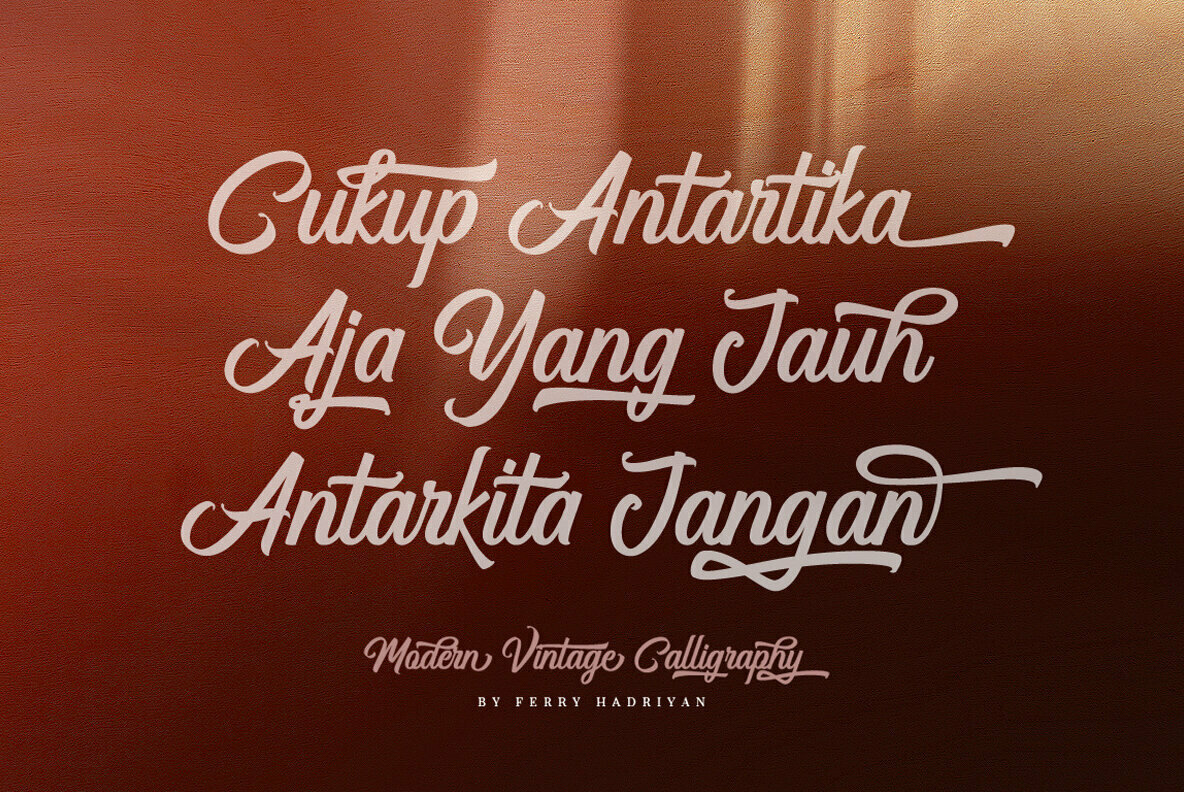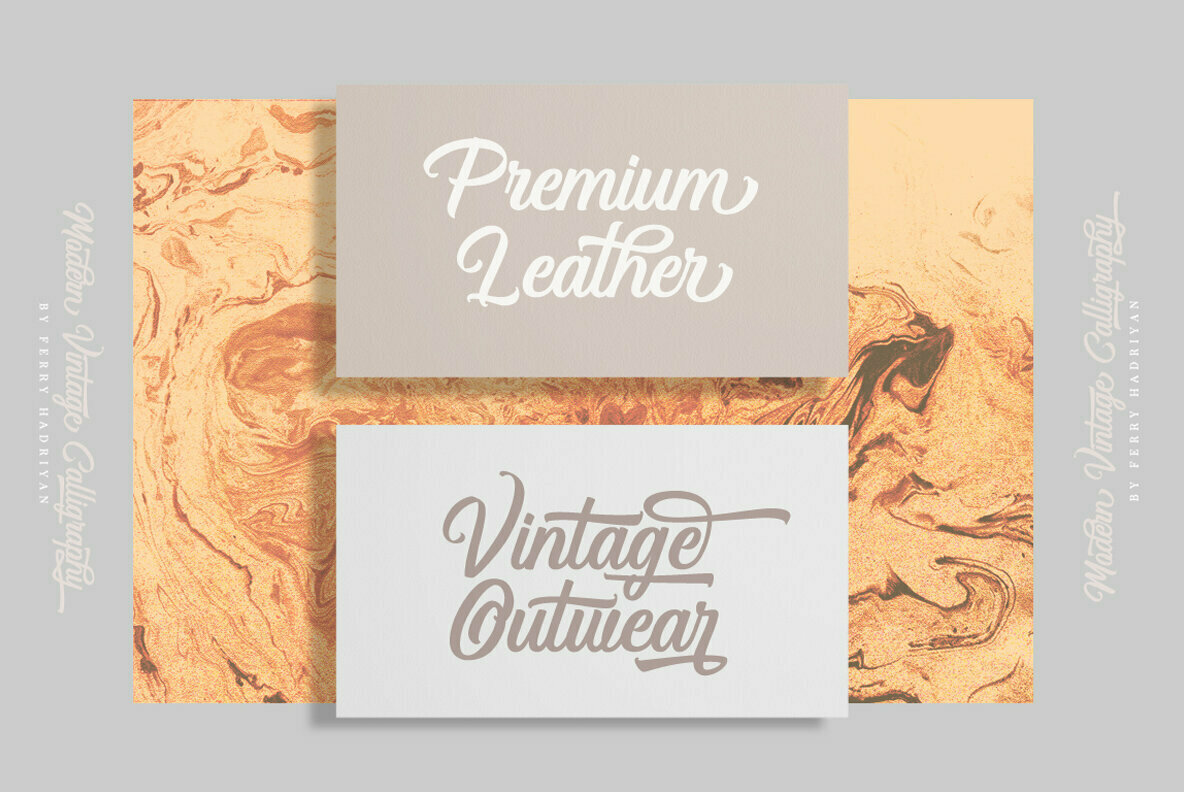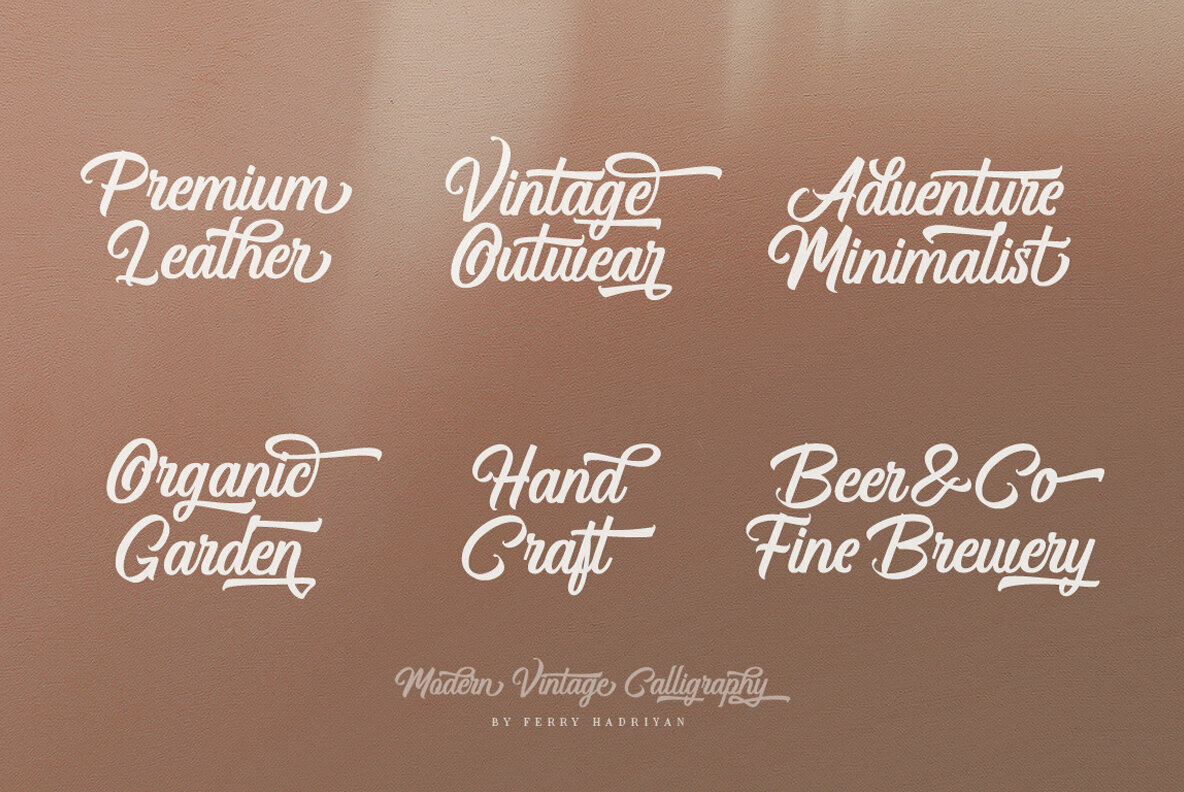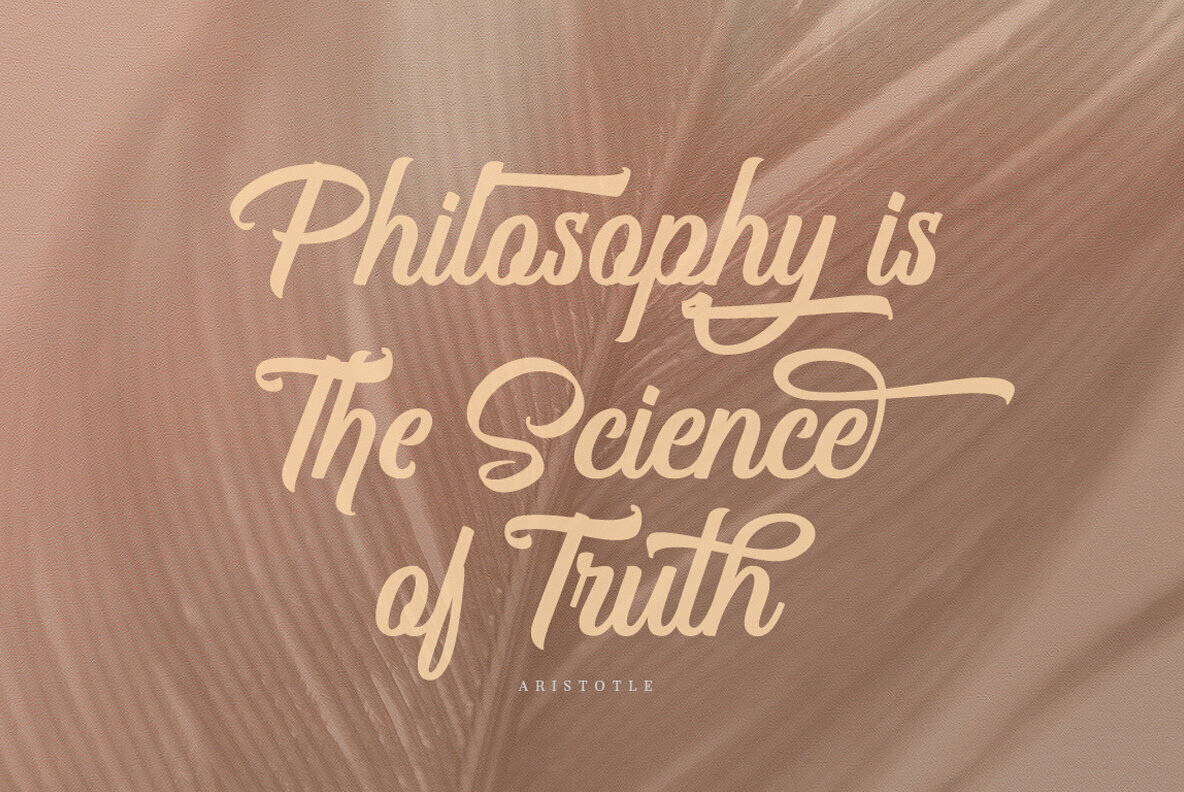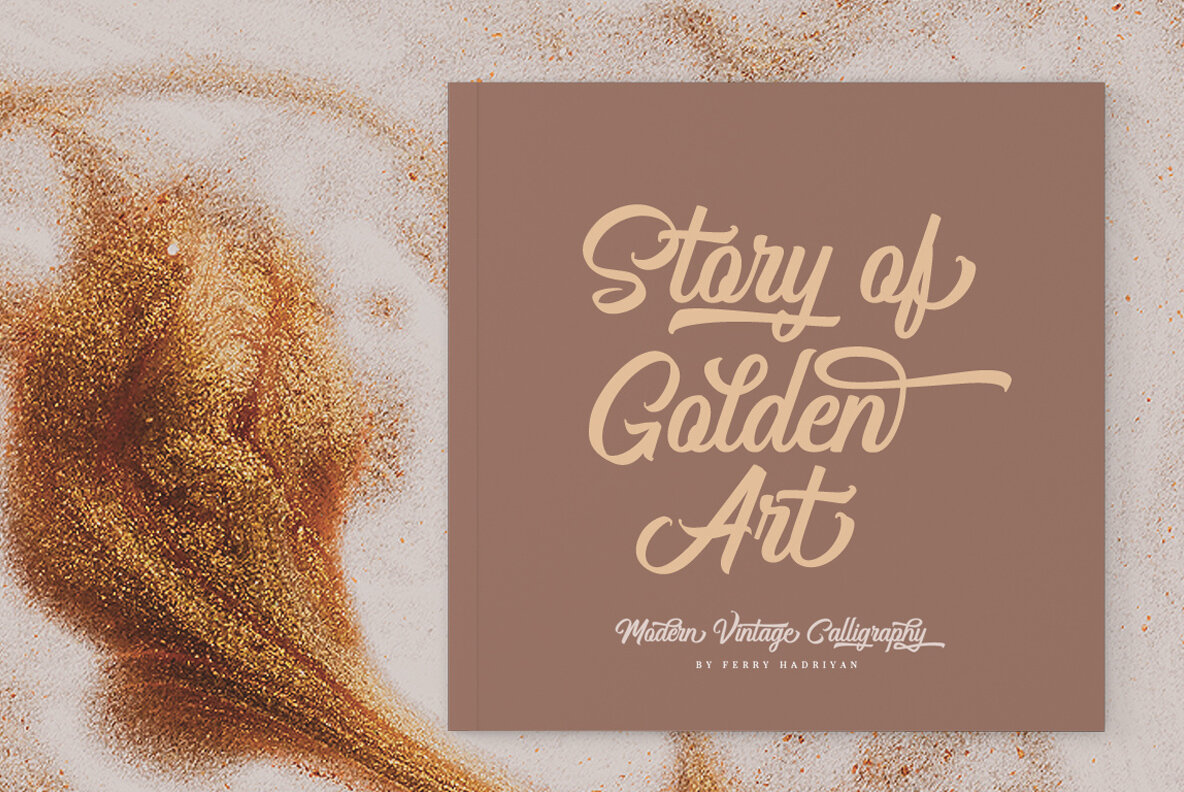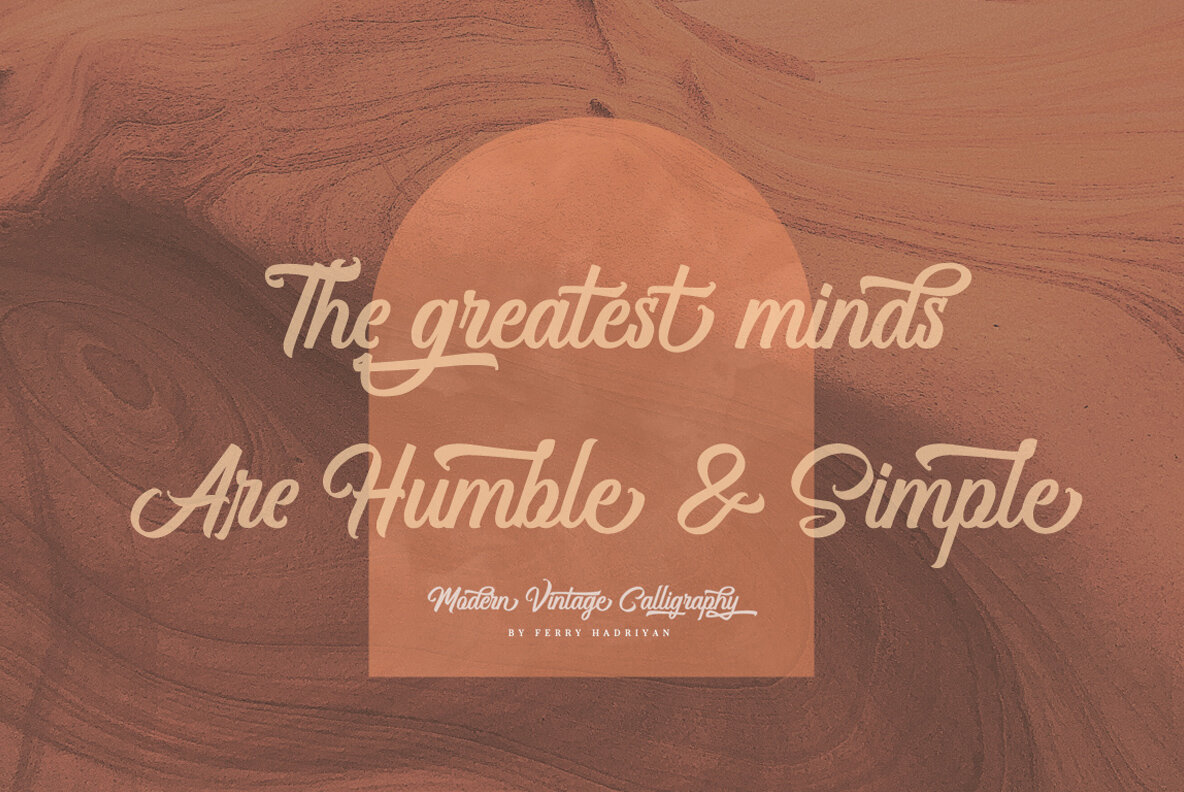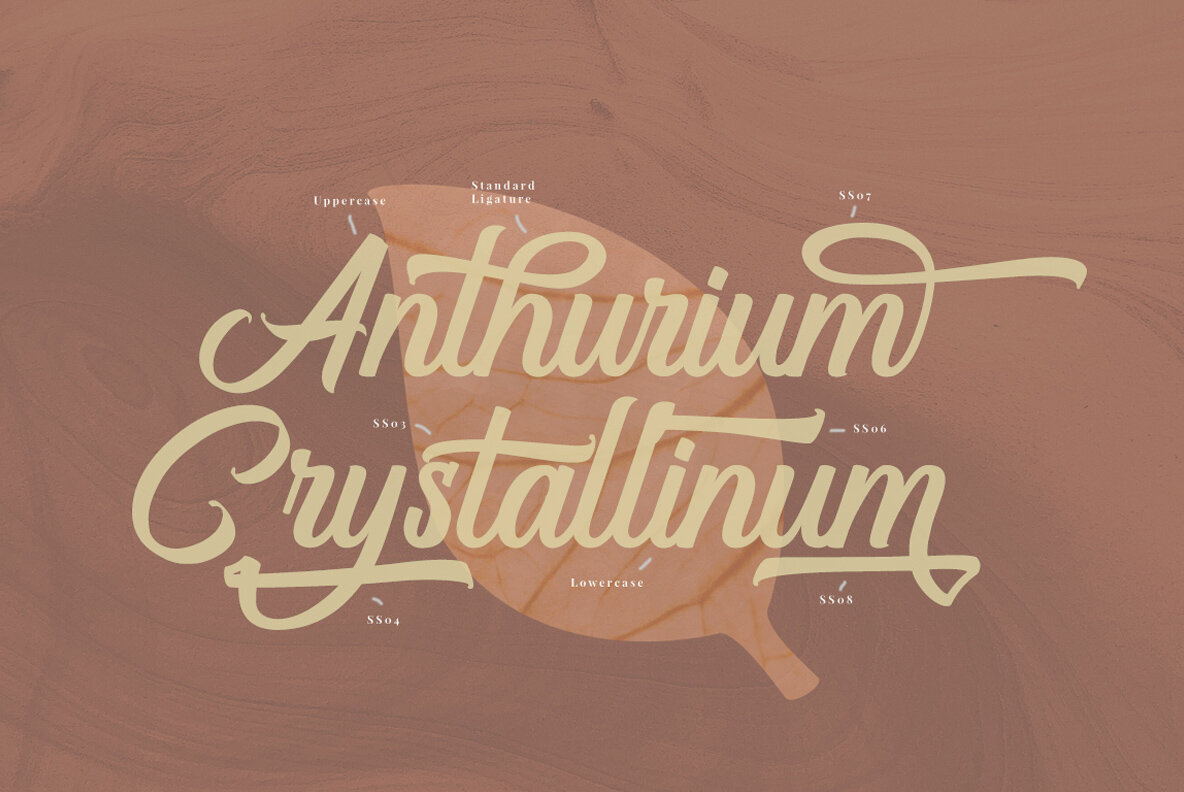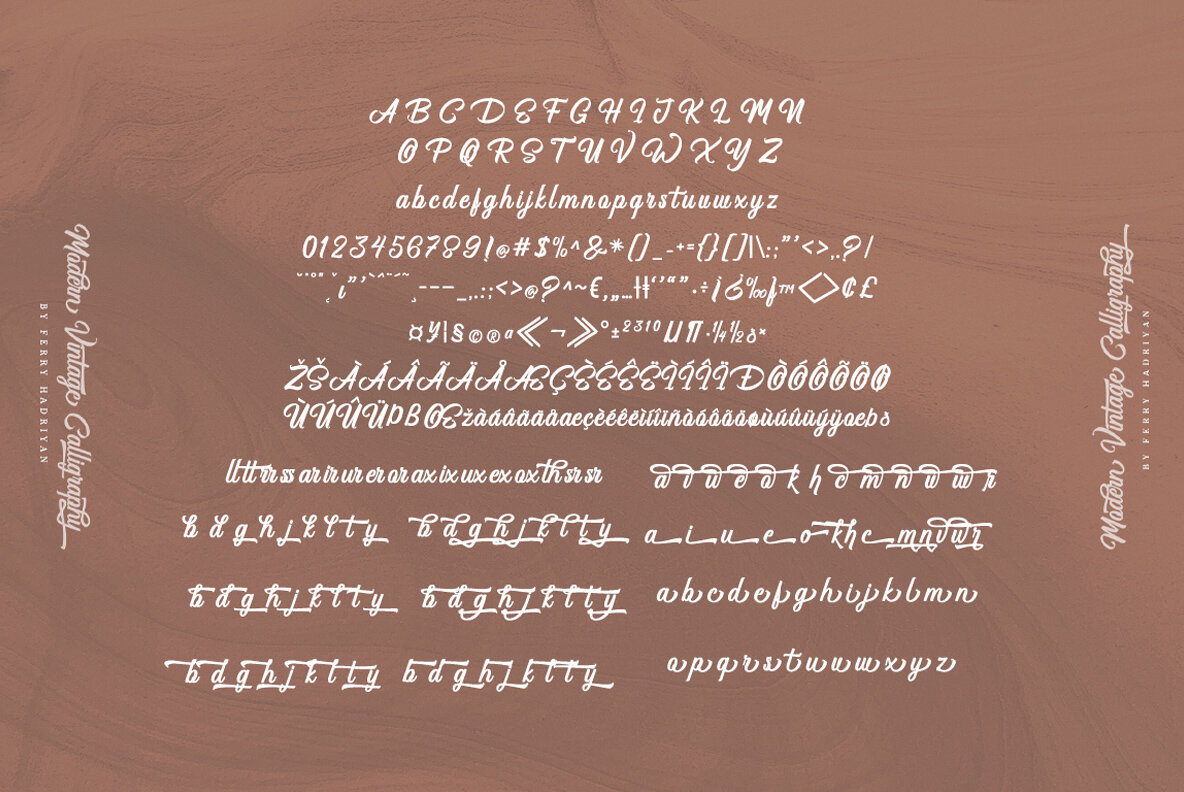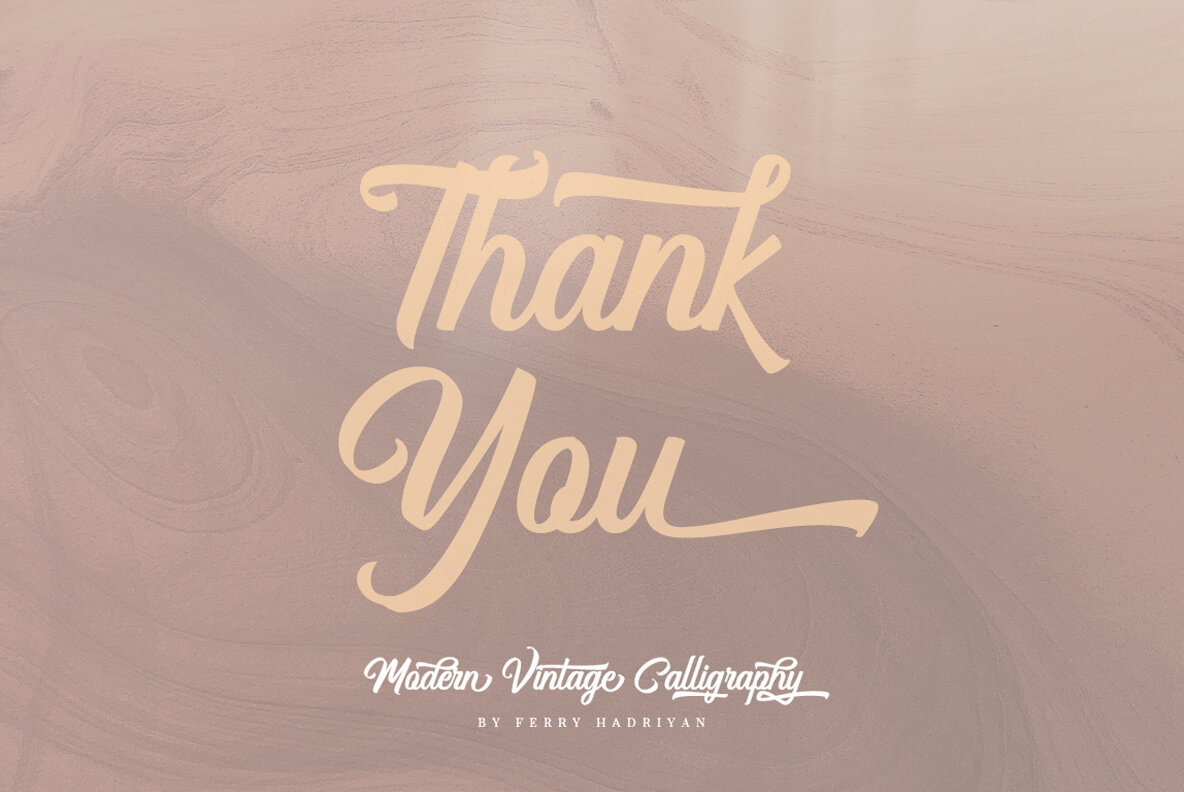
Bhorgcust Font
Bhorgcust
Bhorgcust brings the timeless beauty of authentic calligraphy to your design projects. This script font boasts a harmonious blend of elegant swashes and letter formations, making it ideal for a wide range of applications. Whether you are working on wedding invitations, logos, or any creative endeavor, Bhorgcust offers the versatility and charm needed to enhance your designs.Bhorgcust: Elegant Script Font with Calligraphic Flair